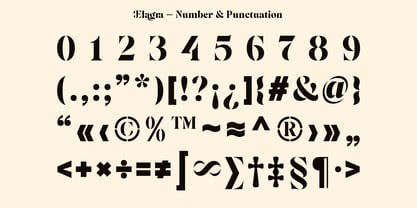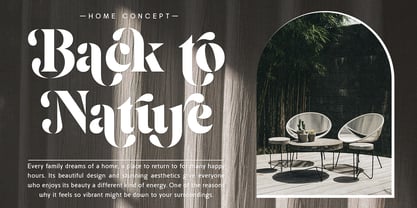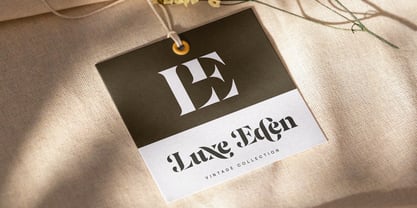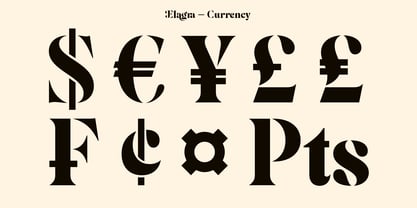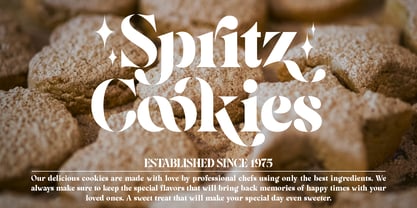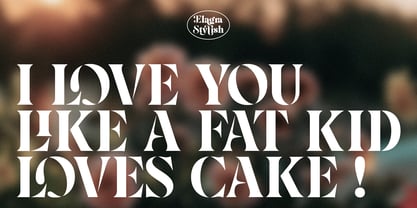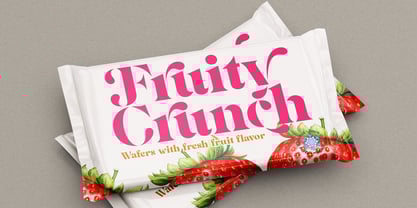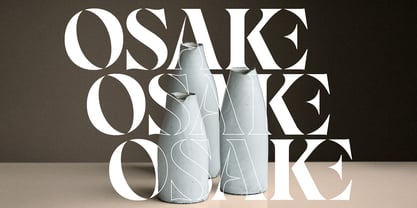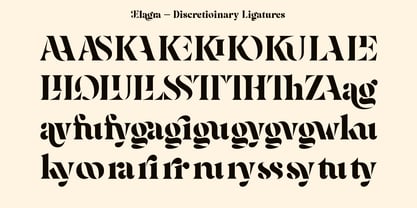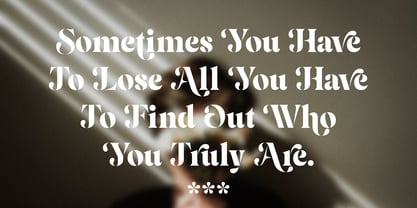
Elagra
The Elagra Font Family was designed by Sugi Yanto and published by Sign Studio. Elagra contains 1 styles.
Elagra - Elegant Stencil Serif Font
Elagra is a stylish serif typeface that combines classic elegance with a modern stencil feel. Perfect for display use, it's designed to attract attention with its bold yet refined look - ideal for everything from luxurious branding to eye-catching posters or packaging. This typeface combines the timeless charm of serifs with a cool stencil twist, giving it a unique edge that stands out in any design.
Elegance with a Classic Touch - With its sleek lines and sophisticated curves, Elagra adds a touch of class to your projects, making it ideal for upscale or high-end designs.
OpenType features: there are standard ligatures and also discretionary ligatures. With 45 custom ligatures, you can add a bit of artistic flair to your typography and give your designs a unique edge. Stylistic Alternates further customise your design with 90 alternate characters (both uppercase and lowercase) and 3 Stylistic Sets to give you plenty of options to play with.
Whether you're working on print or digital projects, Elagra is here to make your designs more elegant and eye-catching. It's the perfect typeface to add that classic touch and still stand out in a modern way.